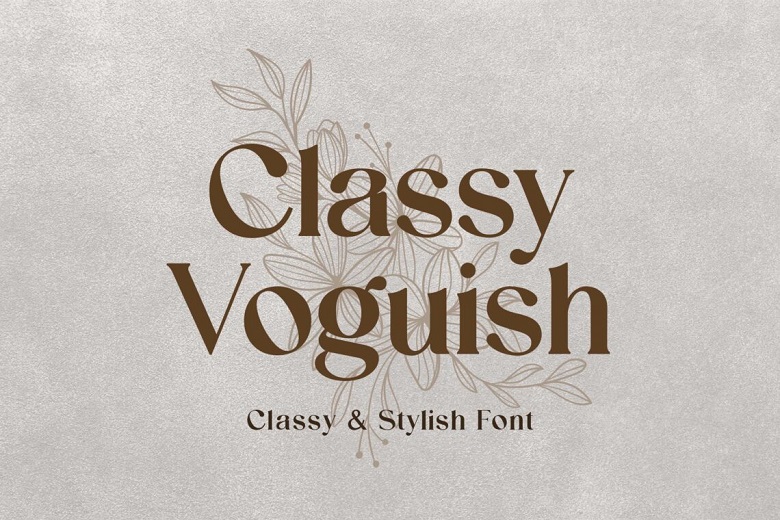
Classy Voguish Font
Here comes the Classy Voguish Font, it’s a Classic Serif Font. A traditional Serif font which brings out a feeling of beauty, class, elegance and modernity to a given work. This font is ideal for signature, stationery, logo, wedding, typographic quotes, magazine or book covers, website headers, clothing, branding, packaging design and many more; Fashion-Related Branding or Editorial Design has elements of both male and female.
Classy Voguish Serif Font